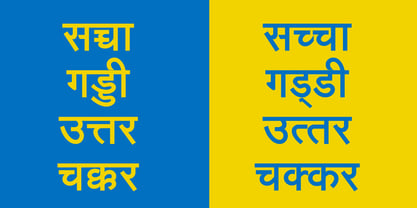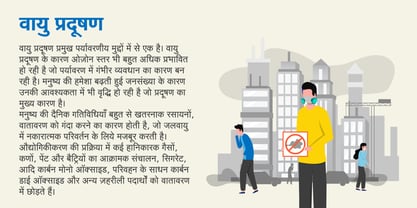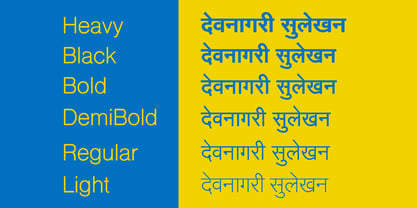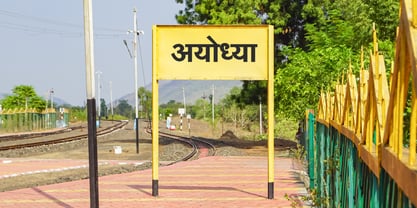
Shree Devanagari 0714
by Modular InfoTech
Shree Devanagari 0714 Font Family was designed by Modular Infotech and published by Modular InfoTech. Shree Devanagari 0714 contains 12 styles family package options.
ShreeDev0714 is a serif font for newspapers and magazines. It is mainly used for novels and magazines. This font family has six weights: light, Regular, Medium, Bold, Black, and Heavy. It has a maximum conjunct for printing good-looking books and magazines. It is also used to produce novels and textbooks. Many people prefer this font for printing Text for wedding cards and invitations. The font contains about 415 Devanagari characters. This font has a high level of readability for small point sizes.
Designers: Modular Infotech
Publisher: Modular InfoTech
Foundry: Modular InfoTech
Design Owner: Modular InfoTech
Modular Infotech (formerly Modular Systems), based in Pune, India, was established in 1983 to advance Indian scripts in the Printing Industry. The company began its journey by developing CRT-based phototypesetters (PTS100), which were launched in 1987. Without font generator tools, Modular created a proprietary font format, continuously enhancing it to meet evolving needs. Collaborating with artists across India, they built the Nation’s most ex...